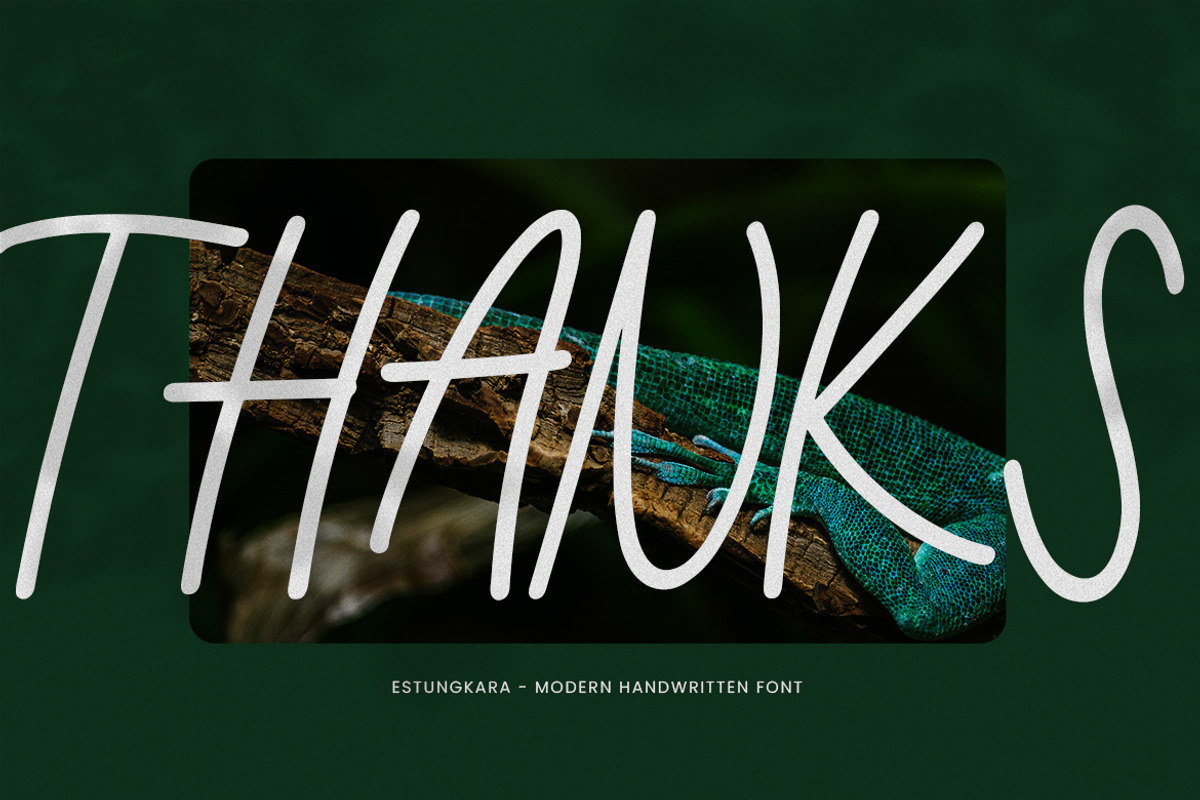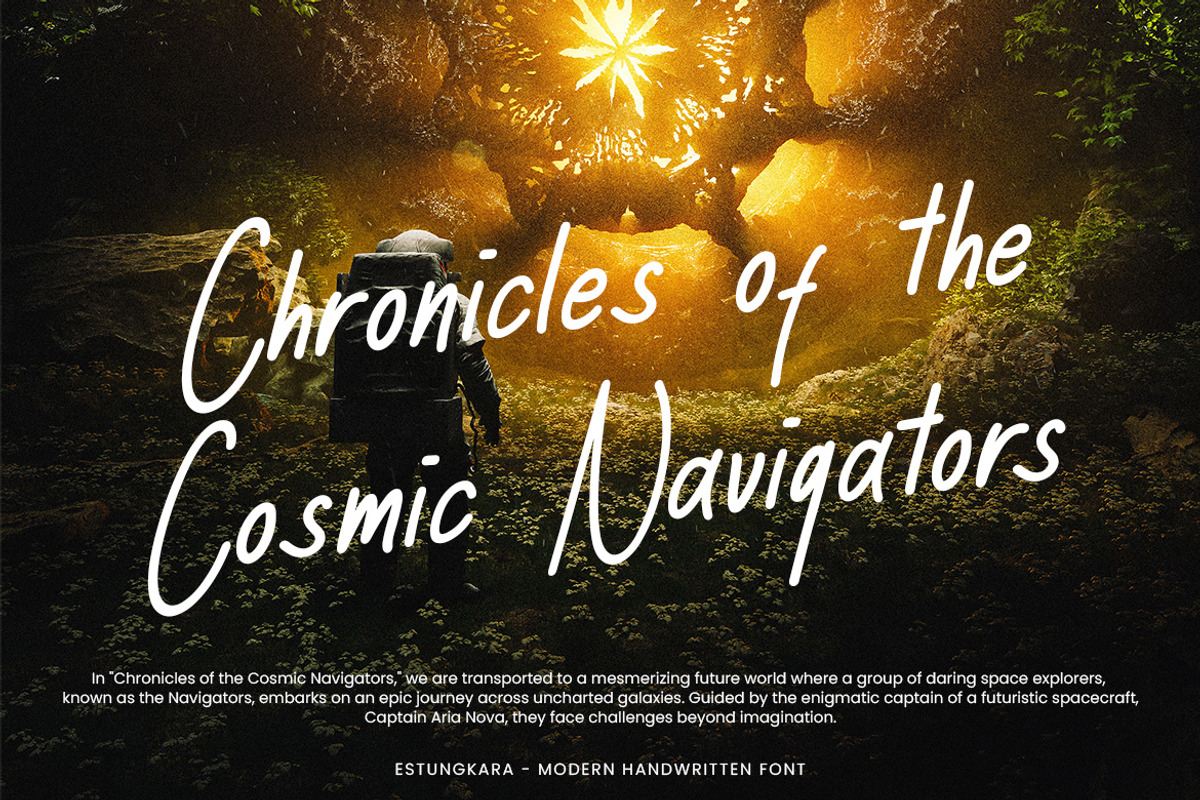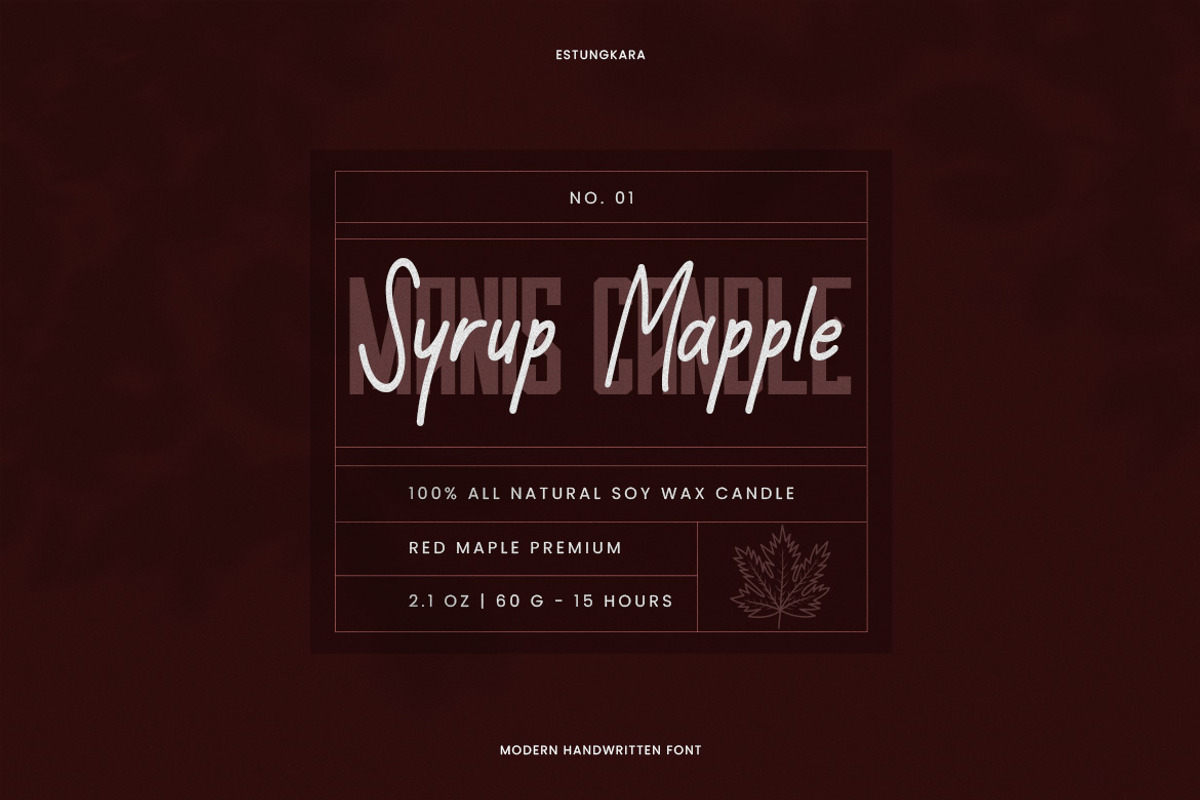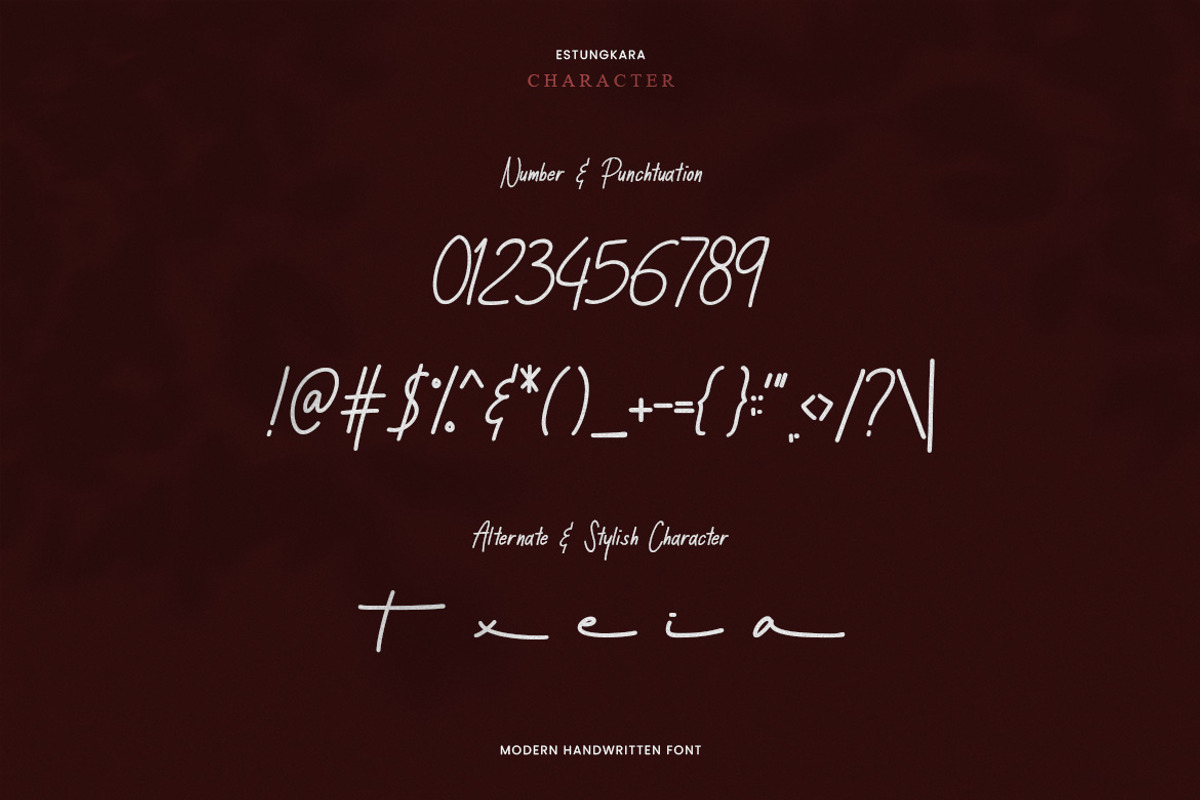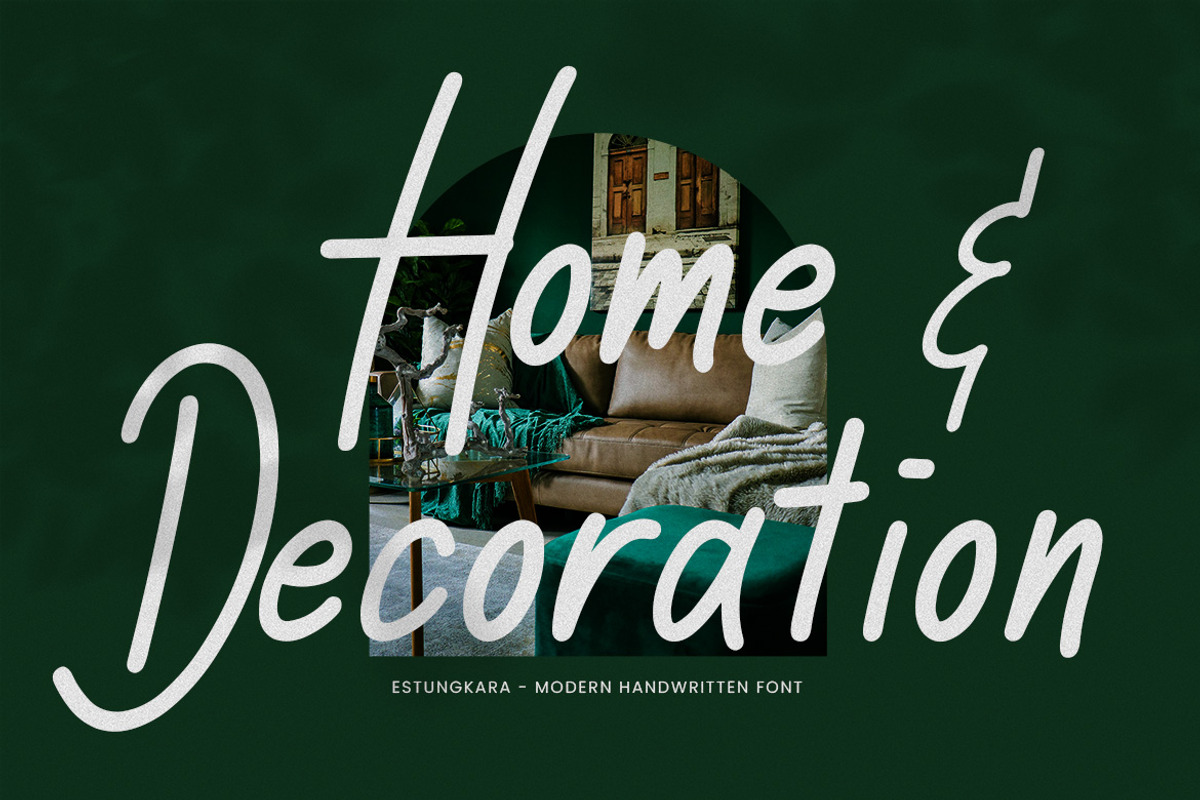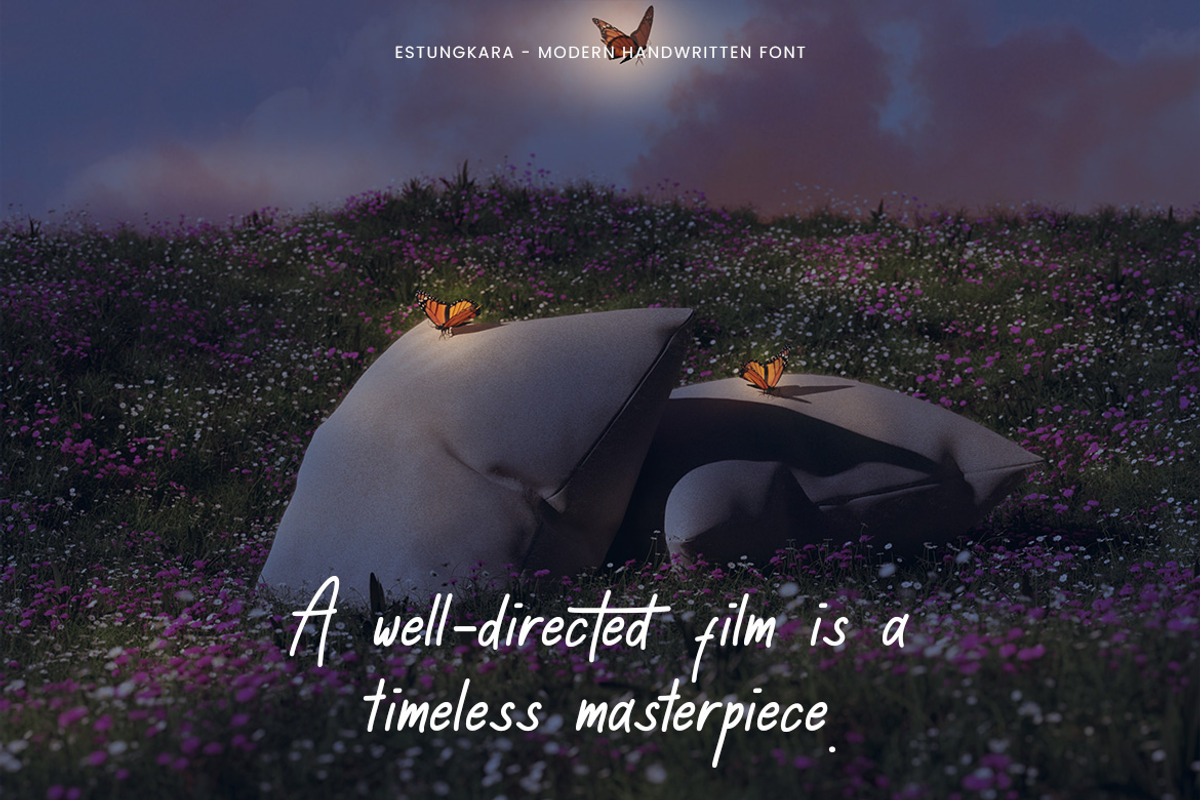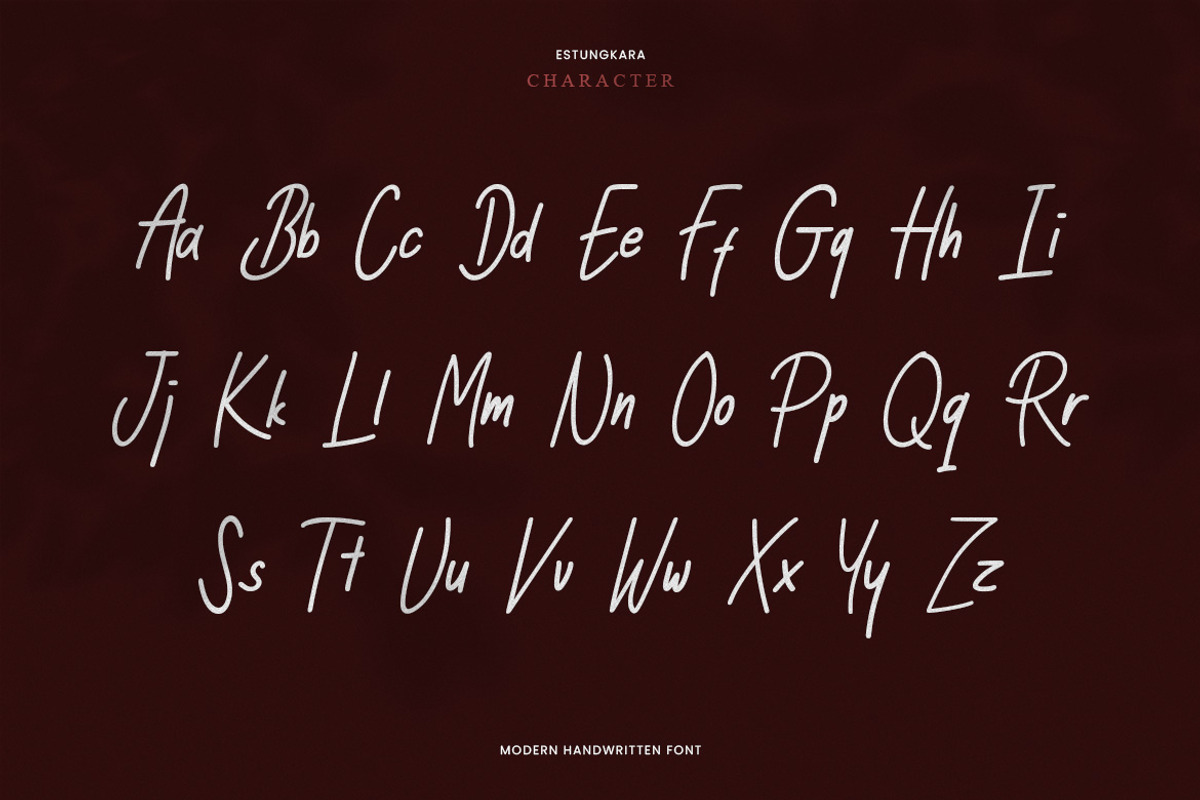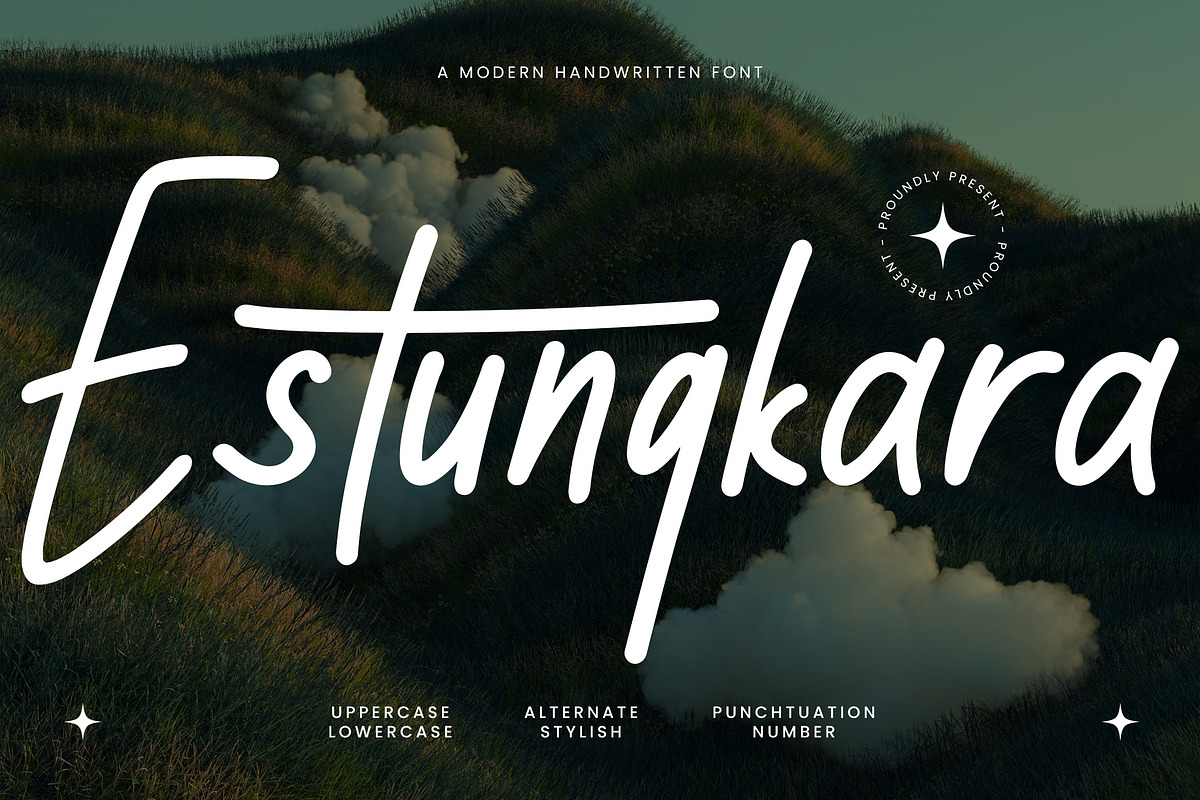
Estungkala - A modern monoline
Estungkala is an awesome with modern cutouts, and a dynamic slant. Ideal for Poster titles, menu flyer, Packaging, Logo and monograms or other modern dynamic text. Estungkala compares favorably with legibility and size, creating the effect of power. Designed as a fast and dynamic font, but with a slightly different font design, check it out and grab it right away.